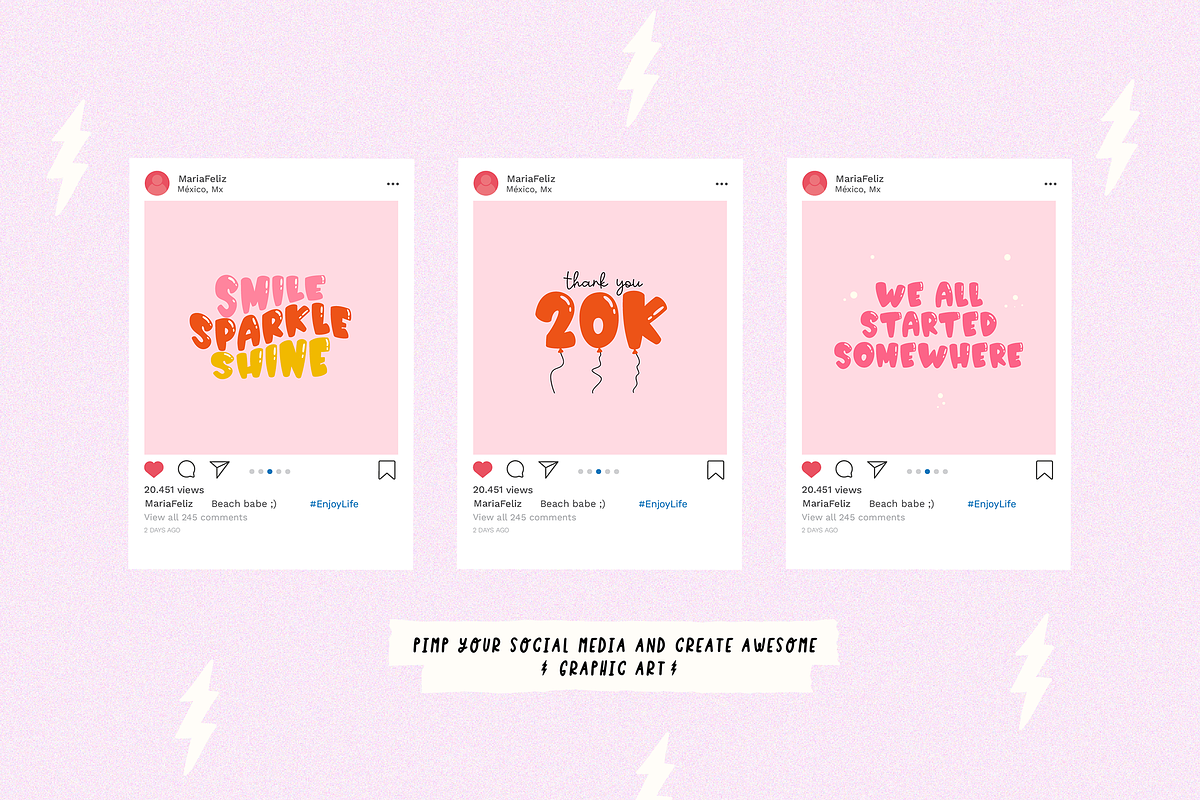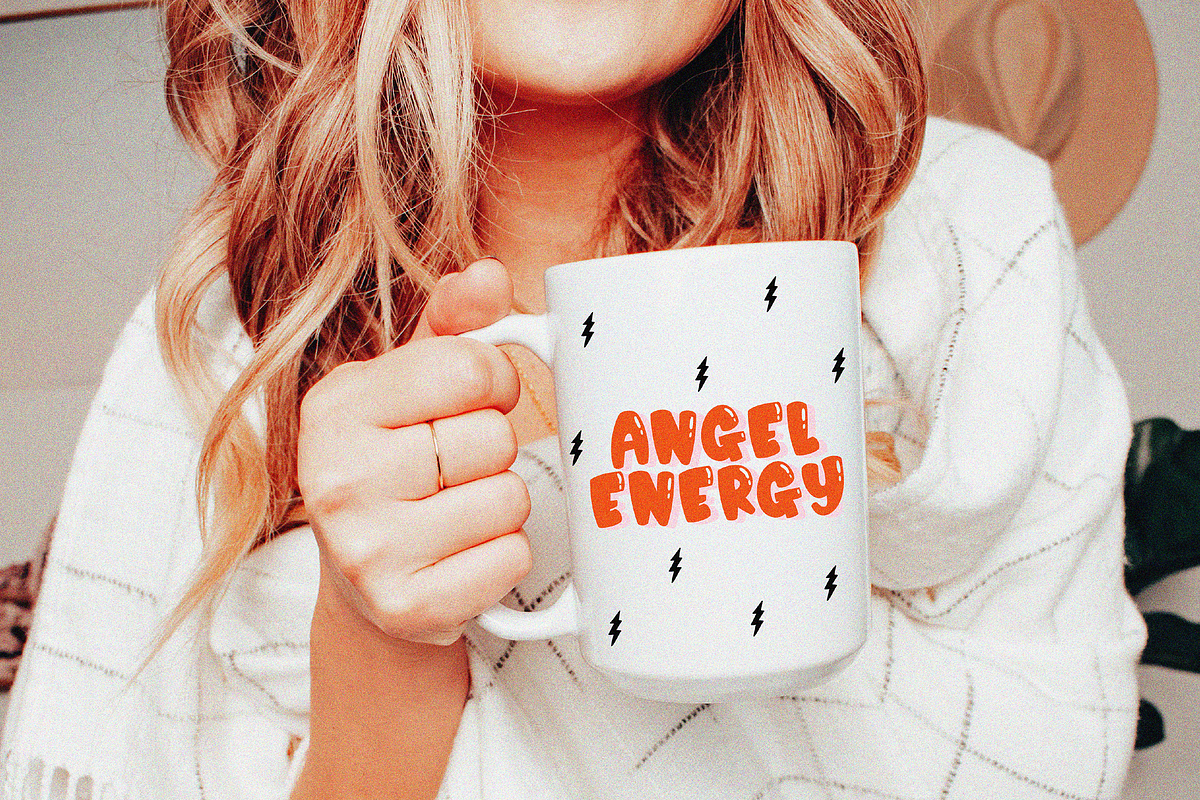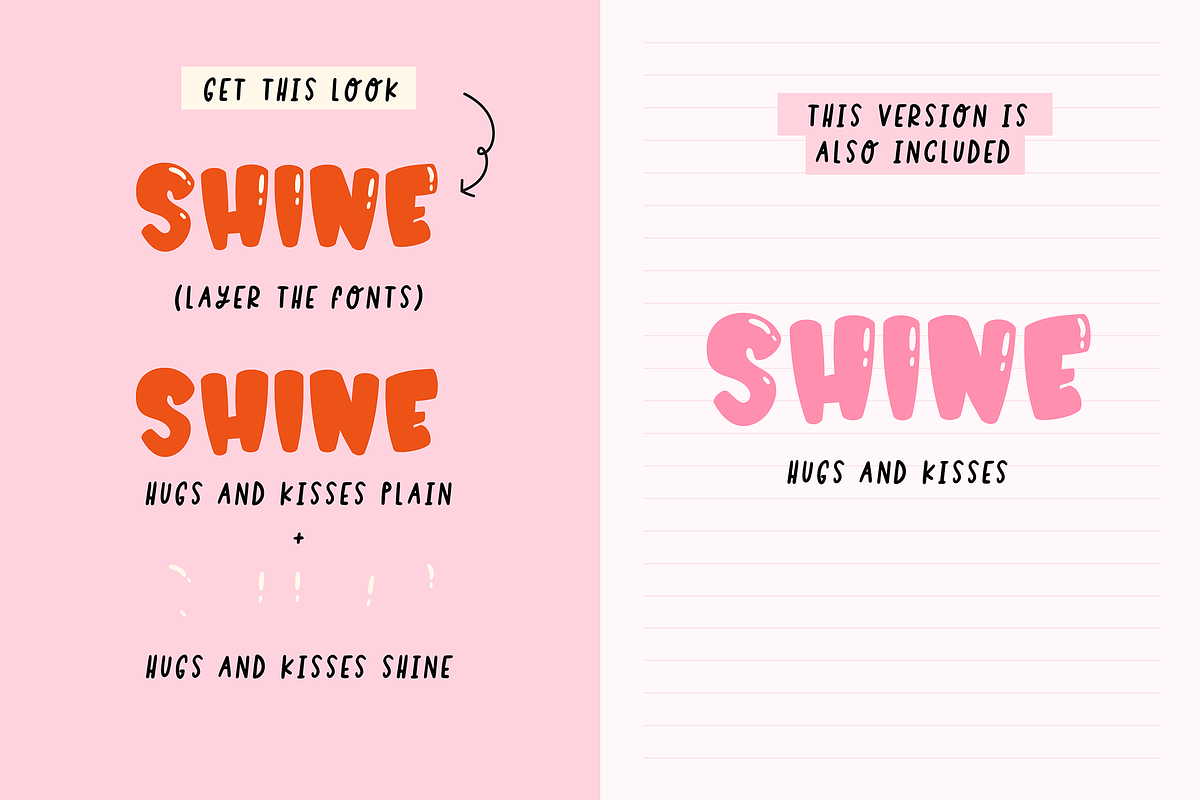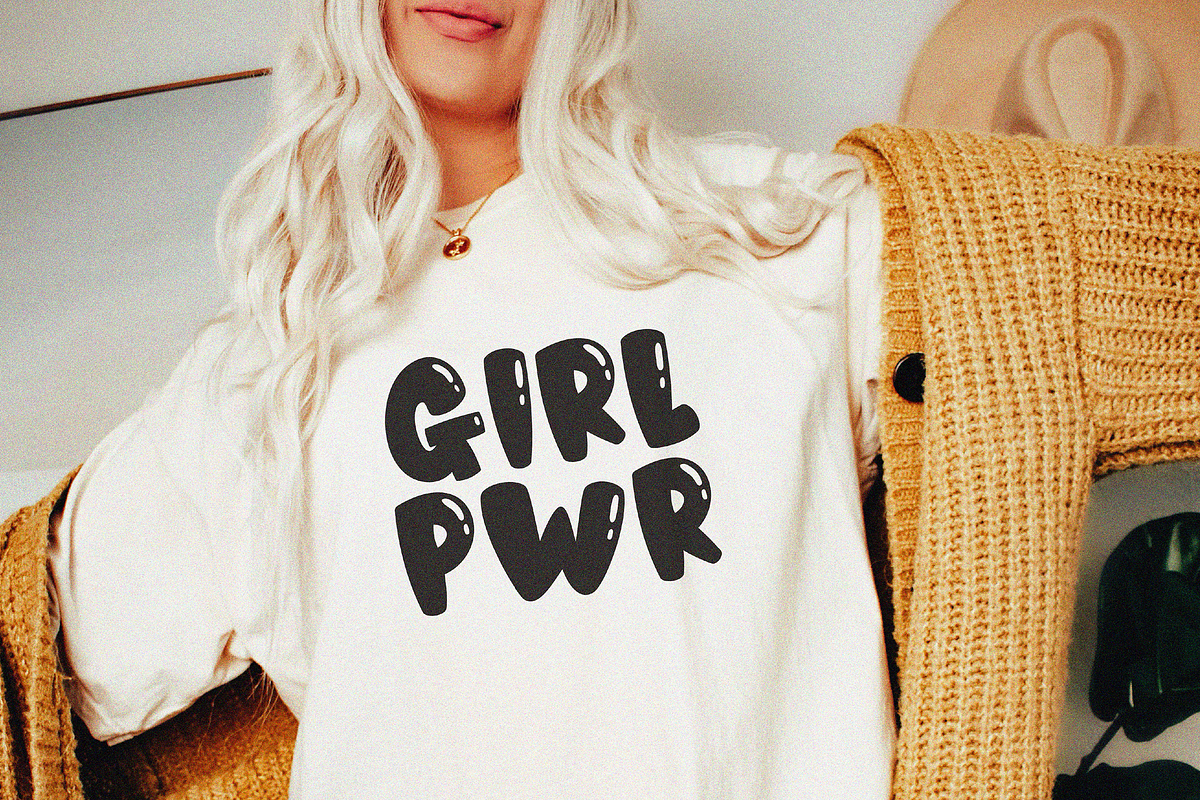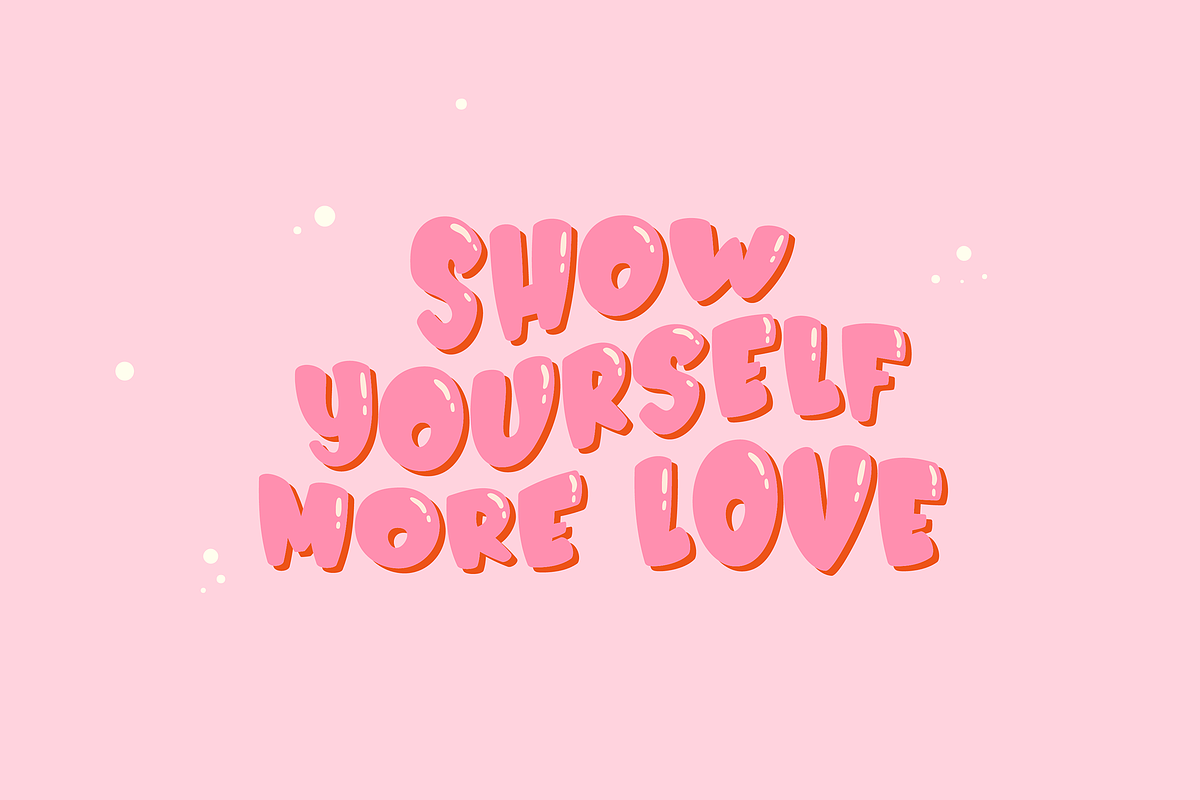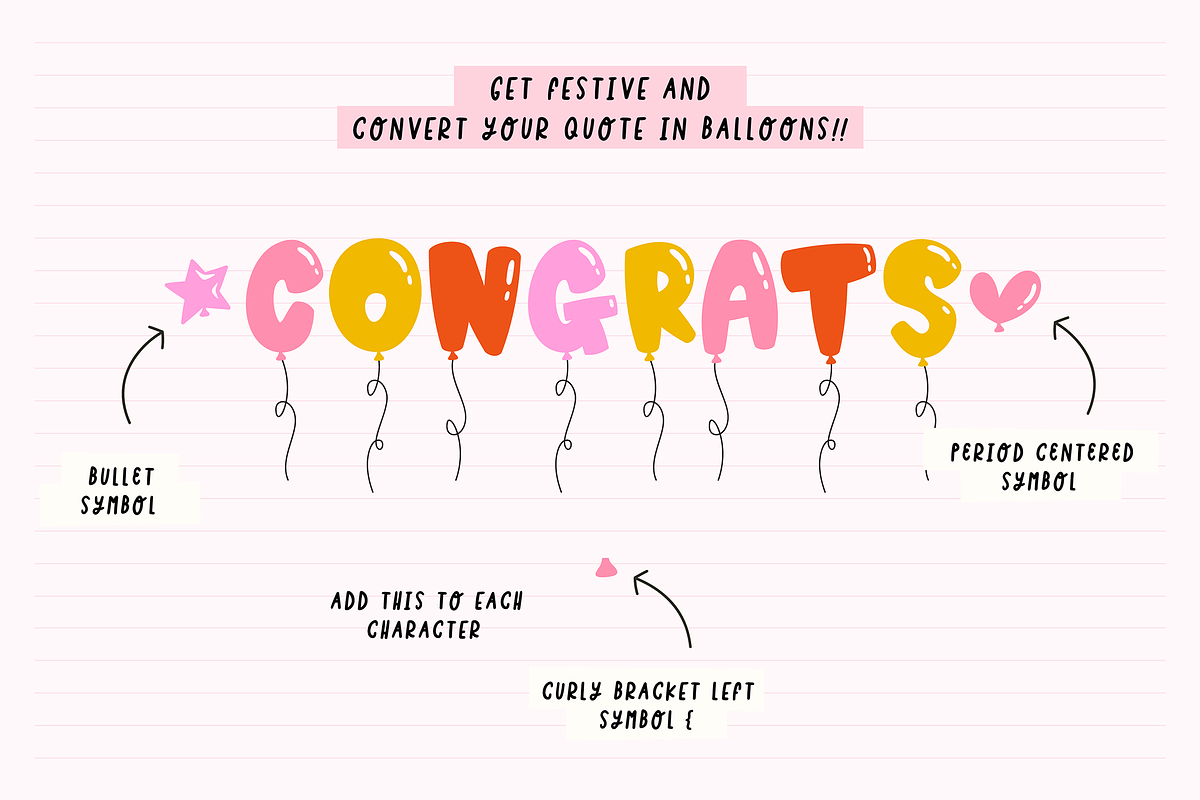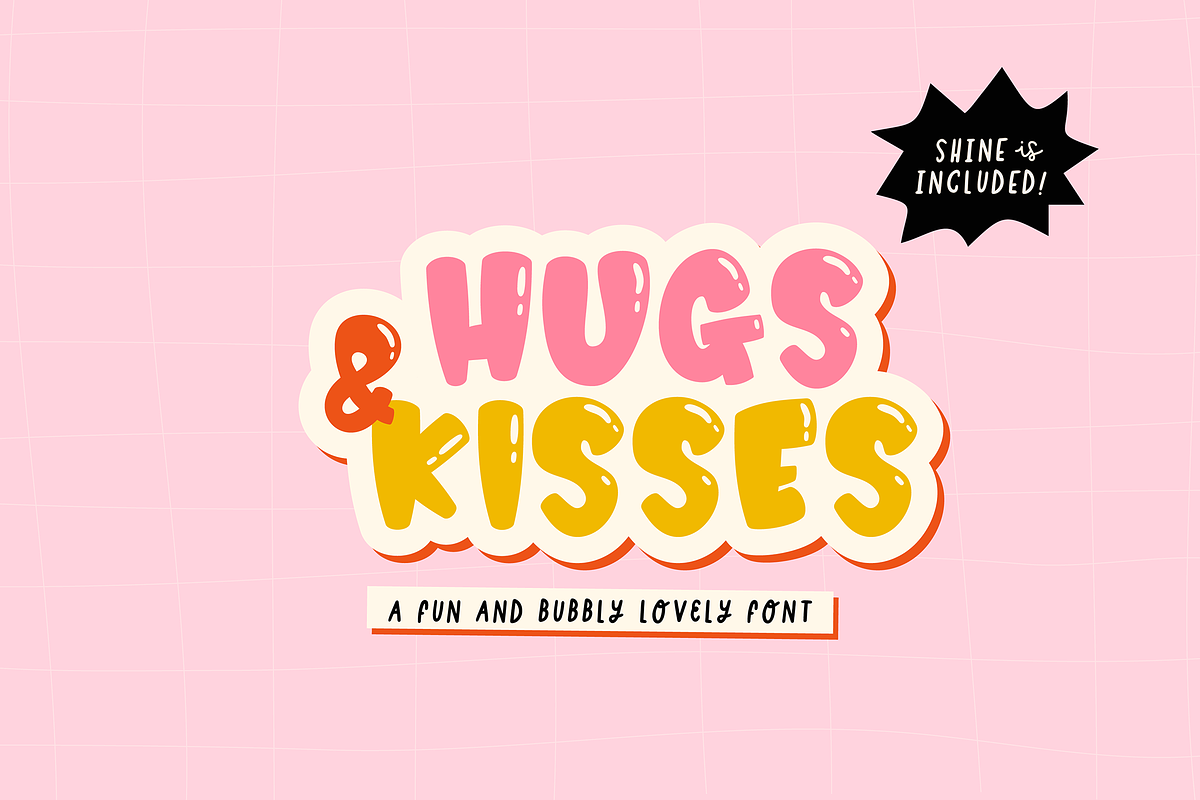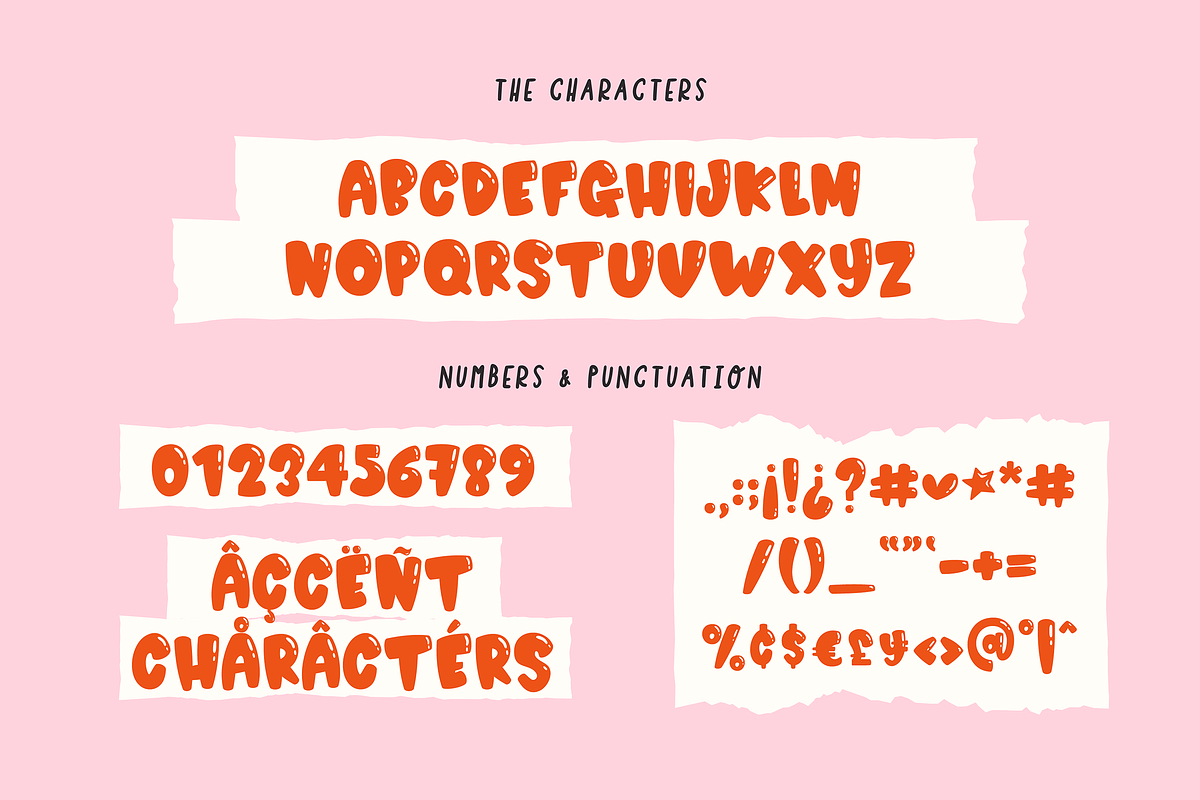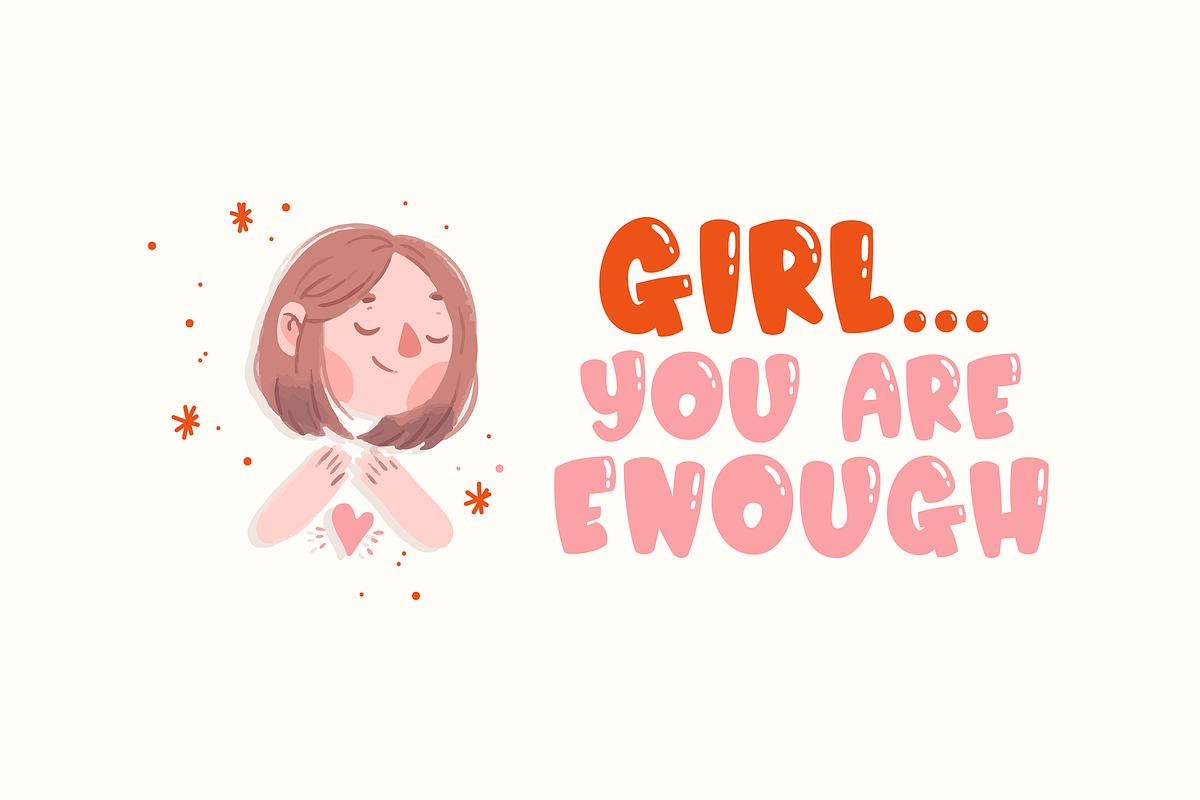
HUGS AND KISSES
HUGS AND KISSES is a fun and bubbly font family
This font is super “fun” for creating birthday/celebration cards, prints and quotes, your social media, products, and much more in an easy way.
✷ Transform your text into a balloons by adding the bracket left symbol { to each letter !!!